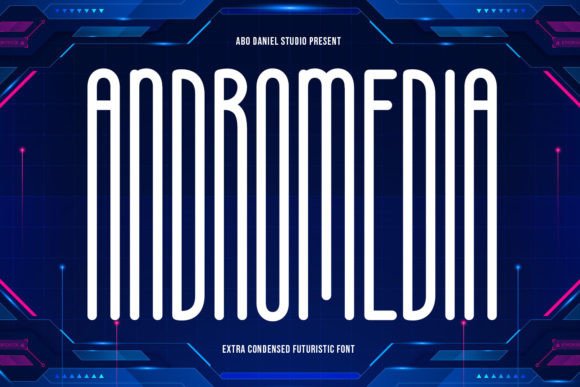
Introducing Andromedia Font, the perfect choice for all your design needs! Created by the talented Abodaniel, this elegant and modern sans serif font is guaranteed to elevate your projects to new heights. Whether you're working on book covers, magazines, social media posts, invitations, or any other design, Andromeda will bring a touch of sophistication and style.
With its minimalist and clean vibe, Andromeda Font exudes a sense of simplicity and elegance that is sure to catch the eye. The sleek lines and smooth curves of this font make it incredibly versatile, allowing it to seamlessly blend with any design concept. It's the perfect choice for both professional and personal projects, ensuring that your work stands out from the crowd.
One of the key reasons why Andromeda Font is the best font for school logos is its ability to convey a sense of professionalism and reliability. The clean and legible characters make it easy to read, ensuring that your message is conveyed clearly and effectively. Whether you're designing a logo for a university, a school, or an educational institution, Andromeda Font will add a touch of sophistication and credibility to your brand.
But Andromeda Font isn't just about professionalism. It also brings a touch of creativity and uniqueness to your designs. With its modern and elegant style, this font adds a sense of personality and flair to any project. Whether you're designing an invitation for a special event or creating eye-catching social media posts, Andromeda Font will captivate your audience and leave a lasting impression.
When you download Andromeda Font, you're not just getting a font – you're getting a tool that will unlock endless possibilities for your creativity. With its extensive character set and various weights, you have the freedom to experiment and create unique designs that truly reflect your vision. Andromeda Font empowers you to express yourself and bring your ideas to life like never before.